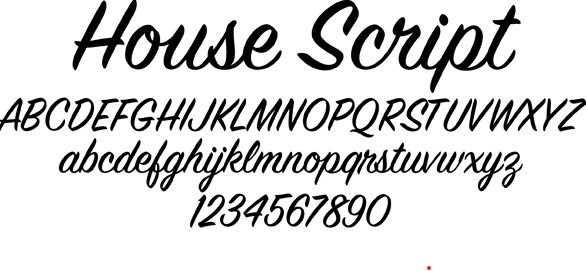
Sign Painter House Script Font
Sign Painter House Script is famous for its bold and italic function. This typeface is also used for its pairing function and it is for free download. Its interest was designed and shared by means of using the old design. The awareness is a fashionable specific signature font that looks as vincentia script font and it is had to keep in mind.
This font is easy to use, the premise of this tremendous font is its simplicity. It’s tremendous for specific branding, photo overlays, watermark, industry card, invites, and so forth. It is a series of harmonious font sizes that have an appropriate percentage that the general public view as “appealing”.